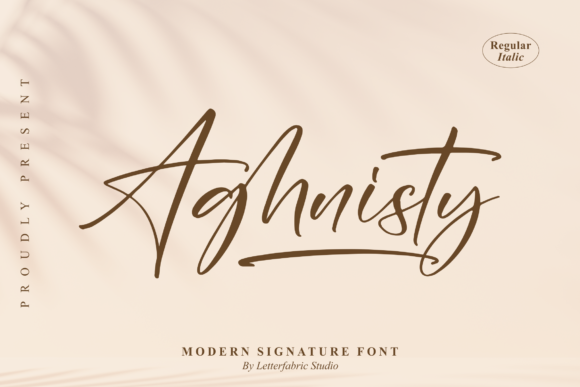
The Art of Whimsy: Unleashing the Beauty of Aghnisty Font
There’s something magical about discovering a new font that sparks creativity and sets your imagination ablaze. For designers, it’s a feeling that’s hard to put into words – a mix of excitement, inspiration, and the thrill of bringing a fresh idea to life. It’s a moment that reminds us why we love our craft, and why we’re constantly on the lookout for the next big thing.
Enter Aghnisty Font, a trendy script font that’s perfect for adding a touch of whimsy to your projects. From logos and branding to homeware designs and product packaging, Aghnisty Font is the perfect companion for any creative endeavor. With its PUA-encoded glyphs and swashes, this font is a designer’s dream come true – making it easy to access and use all its beautiful features.
- Unique Characteristic: Aghnisty Font features a unique blend of modern and vintage elements, with intricate details and flourishes that add a touch of sophistication to any design.
- Font Style: The font comes in a range of styles, from bold and condensed to light and script, allowing designers to experiment with different looks and feels.
Aghnisty Font Review
Overall, I think the Aghnisty Font has some interesting aspects that make it worth considering for certain projects.
- Unique aesthetic: Aghnisty Font has a distinct, almost mystical feel to it that can add a touch of elegance to digital designs.
- Good for headlines: The font’s bold and ornate qualities make it well-suited for use in headlines and titles.
- Supports multiple languages: Aghnisty Font includes support for various languages, which can be a plus for international projects.
- Readability issues: While the font looks great, it can be challenging to read in certain contexts, particularly in smaller sizes or at a distance.
- Limited versatility: Aghnisty Font may not be the best choice for body text or long passages of text due to its ornate and decorative nature.
Overall, I think the Aghnisty Font is a great addition to any designer’s toolkit, but it’s essential to use it judiciously and consider its limitations when selecting it for a project.
For best results, use Aghnisty Font for headings and titles to create a striking visual impact.
Use Aghnisty Font for creative typography and to add a unique touch to your designs.
Use Aghnisty Font to create visually appealing headings and titles in your presentations and documents.
Use Aghnisty Font for creative typography, headings, and titles to add a unique touch to your designs.
Pair Aghnisty Font with other elegant fonts to create a sophisticated and stylish visual impact.
Use Aghnisty Font for branding, marketing materials, and creative projects where a distinctive font is required.